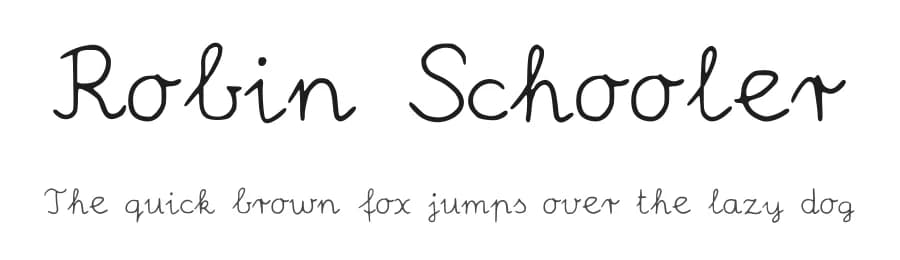
About Robin Schooler Font
Robin Schooler Font is a script font that shines as a display or heading face. Pair it with a clean sans-serif or serif font for body text β the contrast creates a clear hierarchy while the two styles stay balanced and easy to read.
Robin Schooler Font
by Borka Szabo
Robin Schooler Font is a script handwritten typeface by Borka Szabo, ideal for logos, invitations, branding, and creative projects.